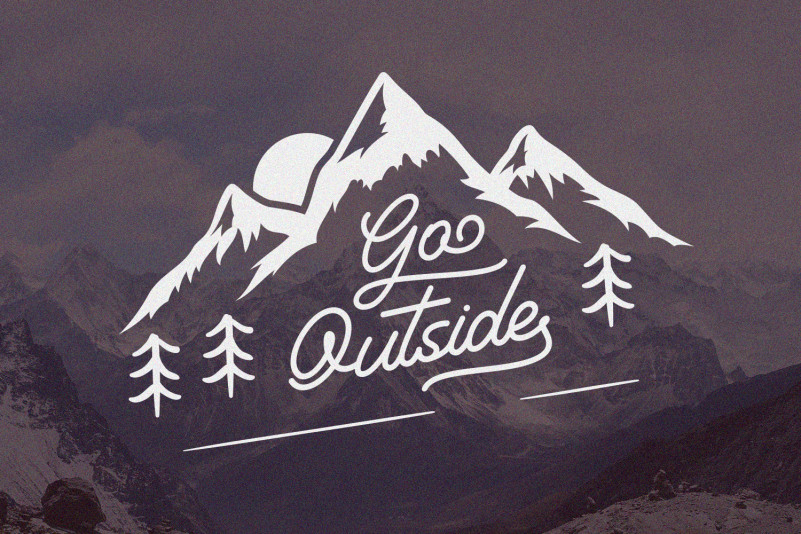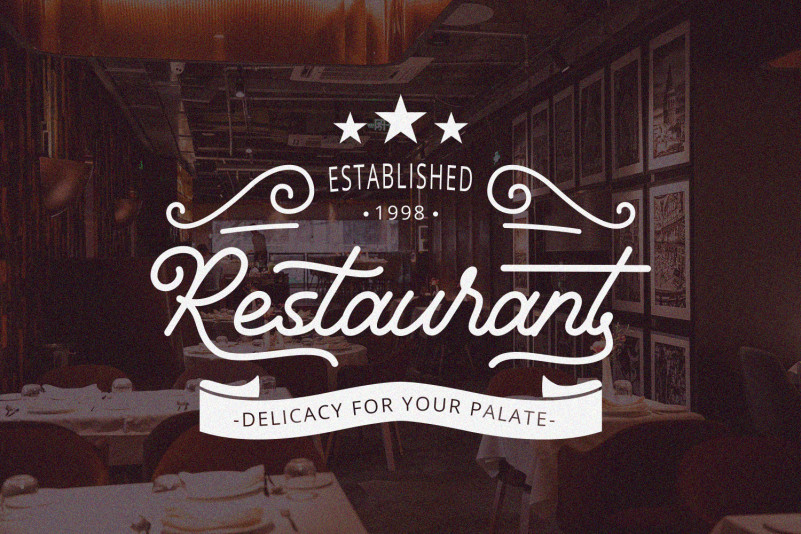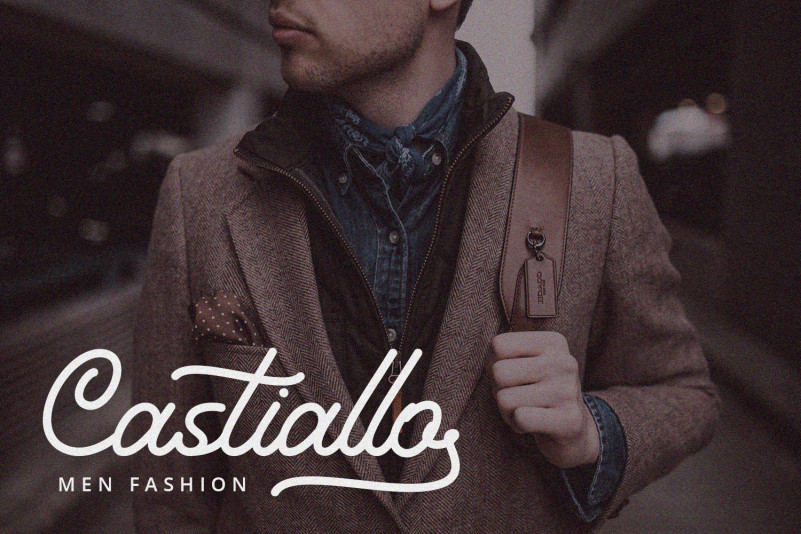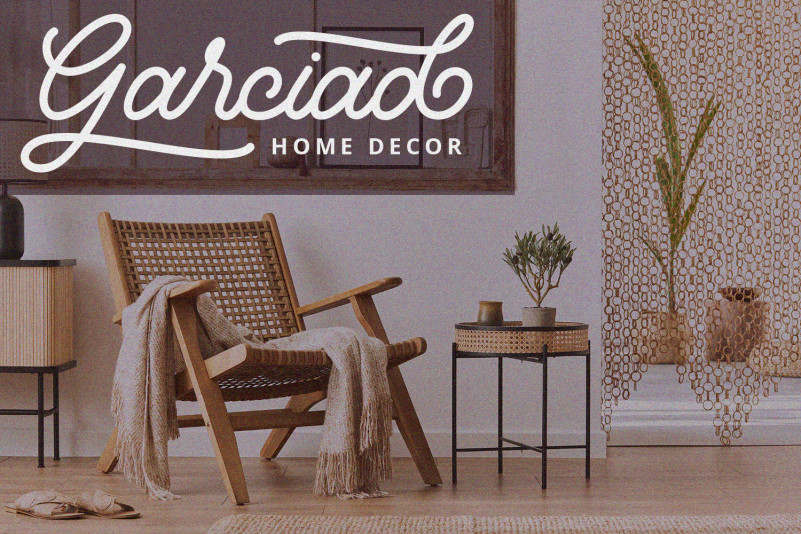
Hunting Script Font
This is a stunning monoline style script font with authentic and casual feels. It will be perfectly used for Branding, Logo Design, Lettering, Logotype, Clothing, Poster, magazine, packaging, posters, shopping bags, t-shirts, book covers, photography, special events and other design project.